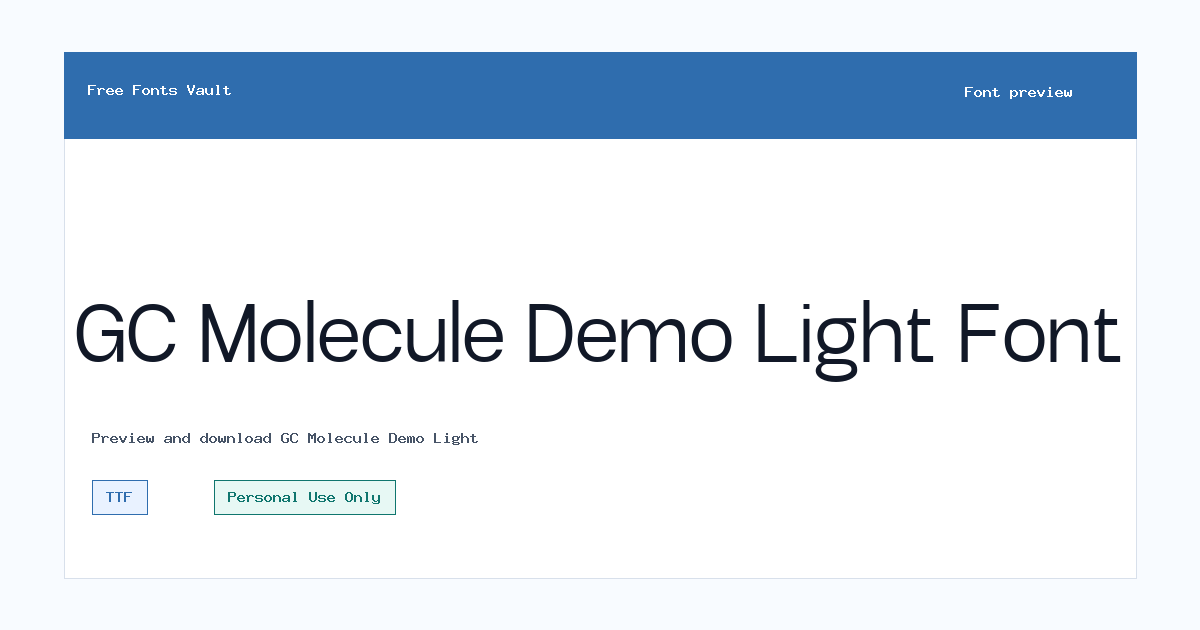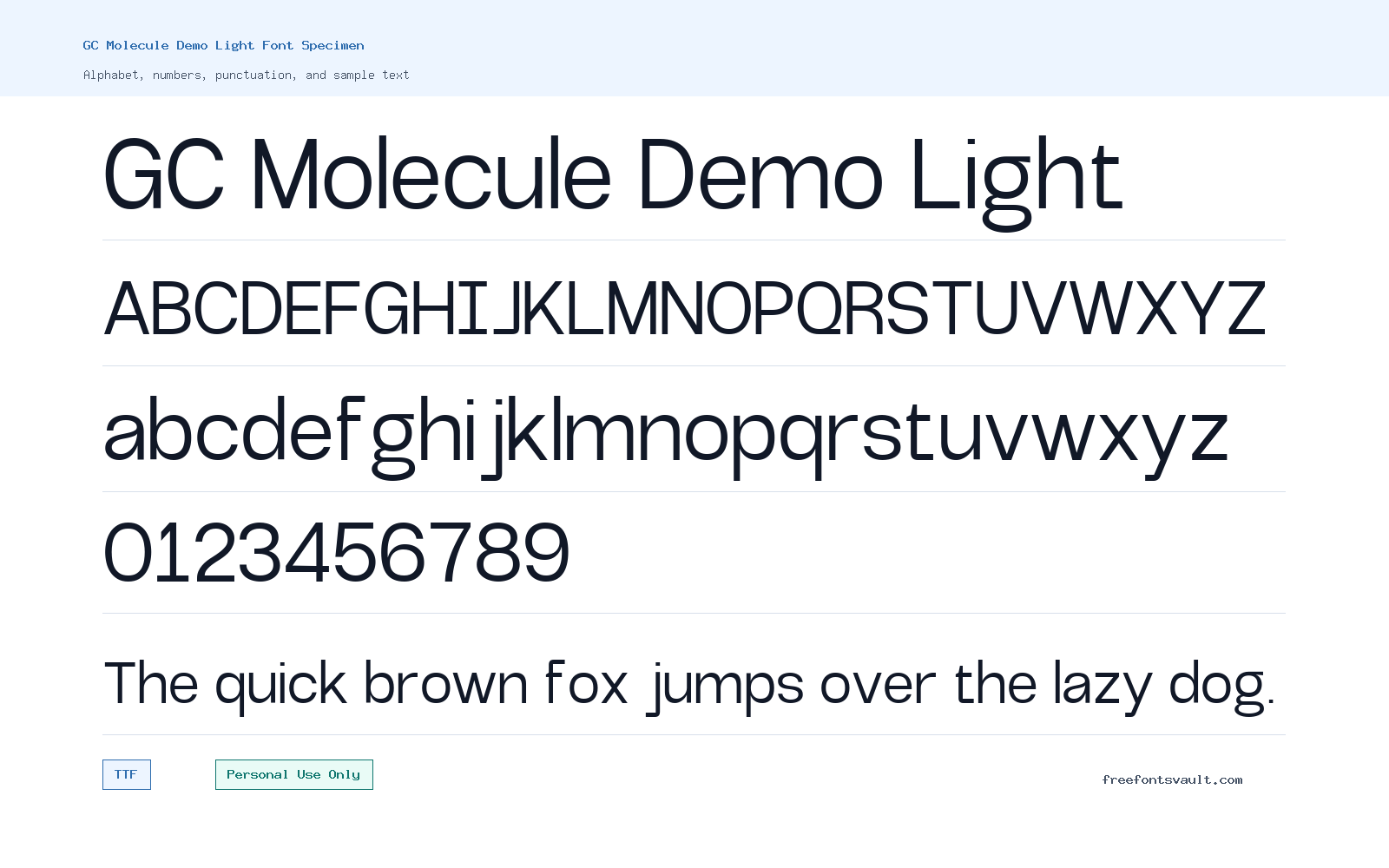
GC Molecule Demo Light
- Designer Ken Priska Dewirani of Glyphonic
GC Molecule Demo Light is a clean, light-weight sans serif font for visitors who want a simple modern look without heavy strokes. Its thin build works best when you give it enough size and spacing, especially in headings, labels, and short display text.
About GC Molecule Demo Light
GC Molecule Demo Light has an upright sans serif structure with a 300 weight, so the letters feel open, neat, and minimal rather than bold or decorative. The shapes are easy to scan in larger settings, with a straightforward alphabet, numerals, comma, period, and basic spacing characters included in the tested font file. Because this is a Light style, it has a softer presence on the page and can look elegant in clean layouts, but it should not be treated like a heavy headline face. Thin strokes can lose strength on small screens, low-contrast backgrounds, or compressed image exports.
Use the preview box to test real words before downloading. Try your brand name, a poster title, a short menu label, and a line with numbers if your design needs dates or prices. The limited character set means it is better for English display text than for multilingual copy, long editorial paragraphs, or projects that need many punctuation marks and accented characters. For pairing, keep the companion font practical: a readable regular-weight sans serif works well for body text, while GC Molecule Demo Light can handle the title, section heading, or short accent line.
- Basic Latin letters, numbers, comma, and period in the inspected font file
- Clean headings, title cards, posters, labels, and simple web graphics
GC Molecule Demo Light is credited to Ken Priska Dewirani of Glyphonic, with Glyphonic listed as the foundry.
For the best result, use GC Molecule Demo Light at medium to large sizes and keep strong contrast between the text and background. Avoid very small body copy, busy textures, and long paragraphs. If you export it inside images for social posts or thumbnails, check the final size because thin lines can blur after compression.
Is this font good for body text?
It is better for short display text than long reading. The light weight can become tiring or too faint in small paragraph sizes.
Does GC Molecule Demo Light support accented characters?
The inspected file shows a basic character set with A-Z, a-z, numbers, comma, and period. Test your exact text in the preview before using it in a design that needs accents or extra punctuation.